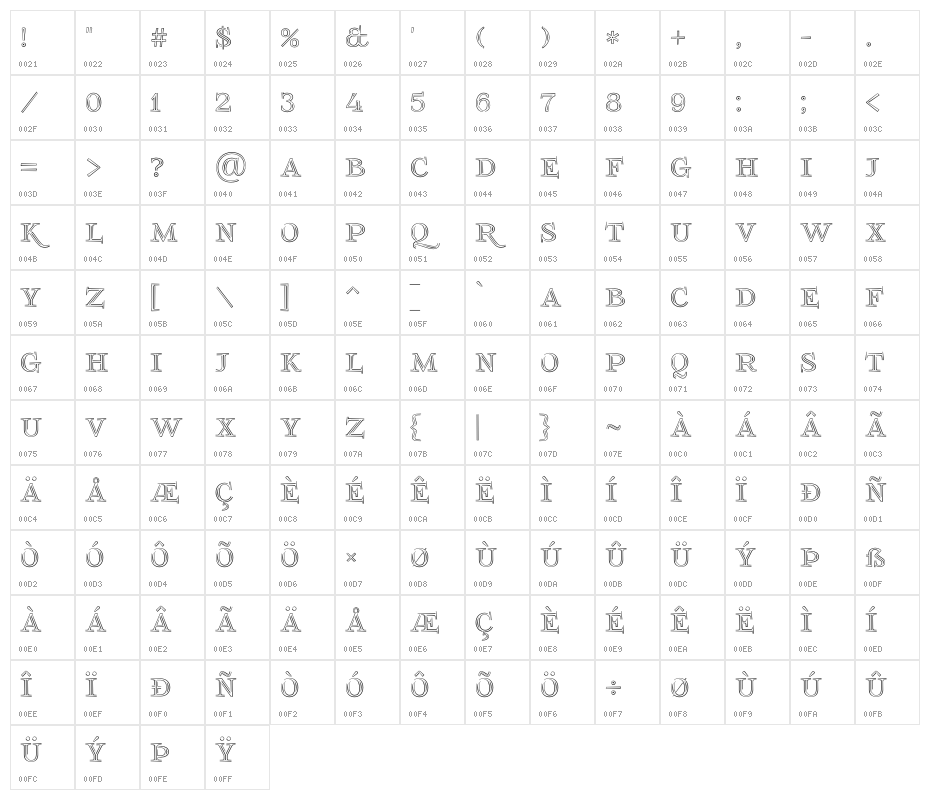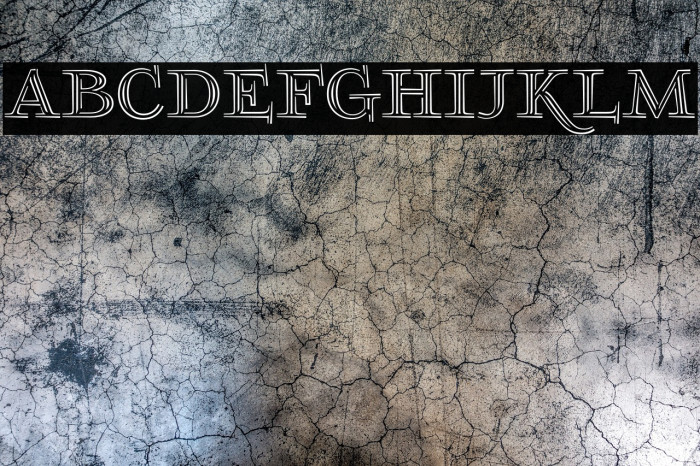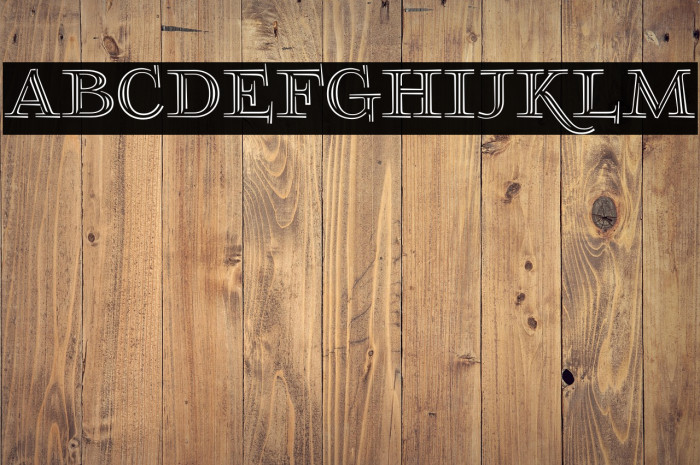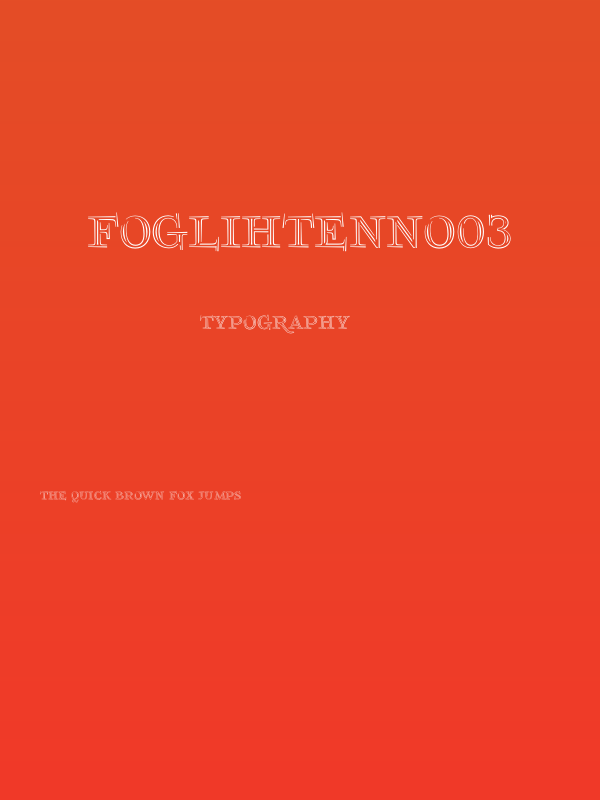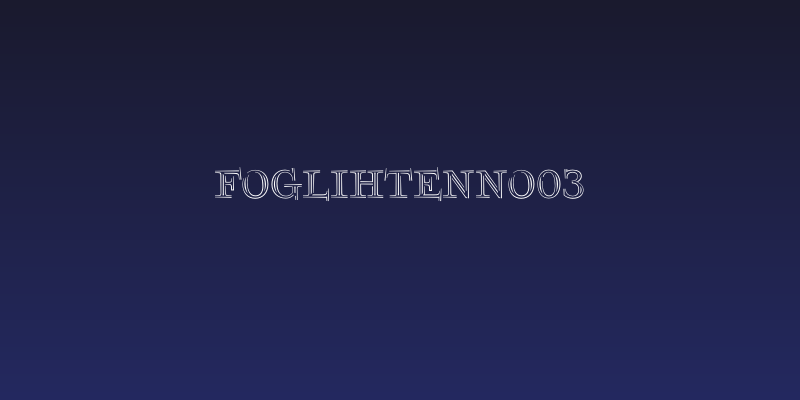
FoglihtenNo03 Font
FoglihtenNo03 Description
This font is a decorative serif typeface characterized by its intricate and artistic design. Each letter features a double-line structure with a shadow effect, giving it a three-dimensional appearance. The serifs are pronounced and add a classic touch, while the overall style maintains a modern flair. The uppercase and lowercase letters are consistent in style, with a balanced proportion that ensures readability. The numbers and special characters follow the same decorative pattern, making this font versatile for various uses. Its unique style makes it stand out, ideal for projects that require a touch of elegance and creativity.
| Use Case | Headlines, Logos, Artistic projects |
| Proposed Projects | Ideal for invitations, branding, headlines, and artistic projects that require a sophisticated and unique look. |